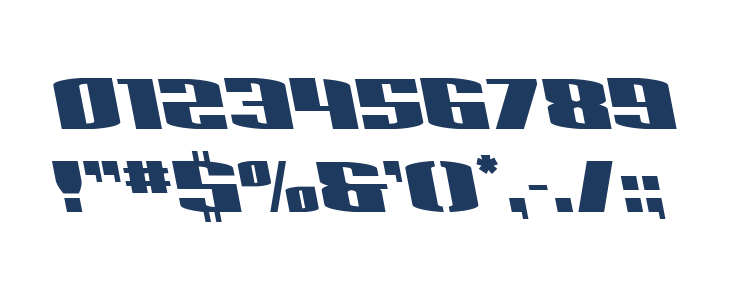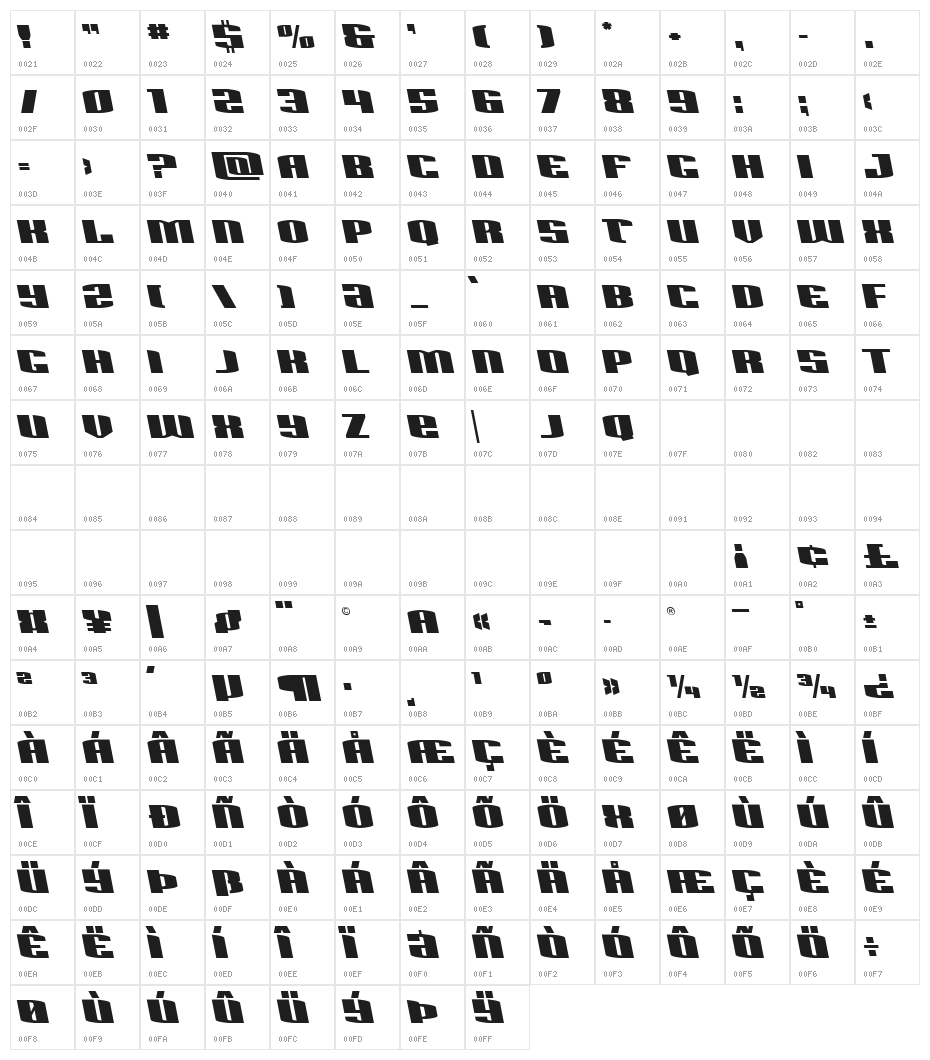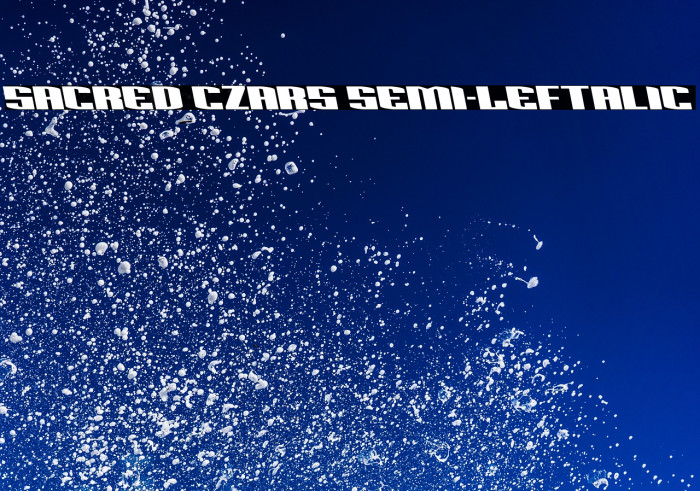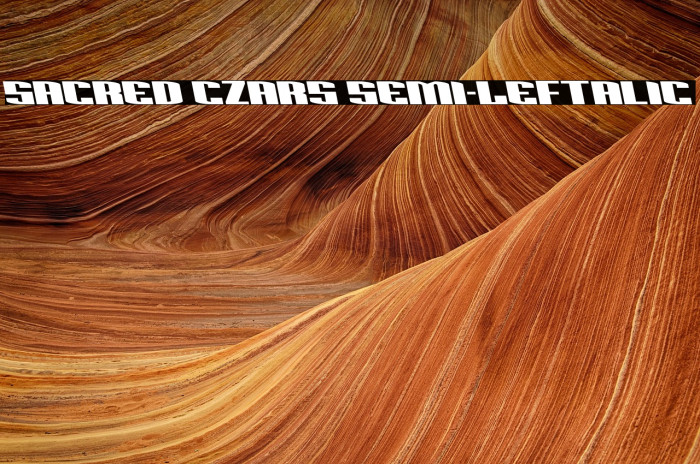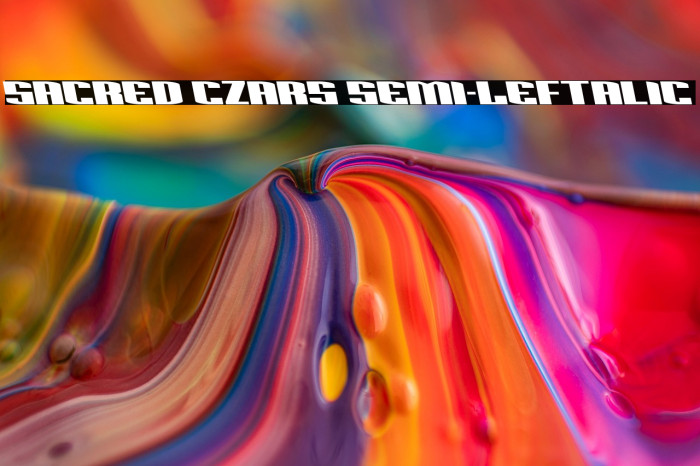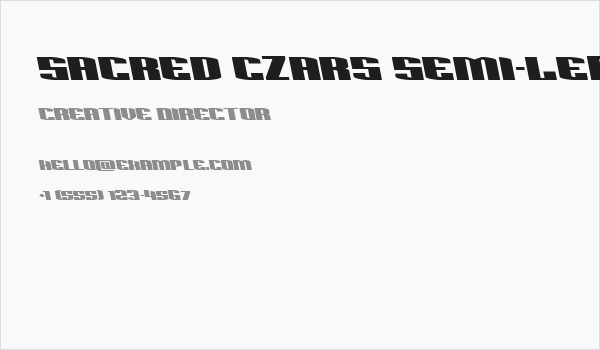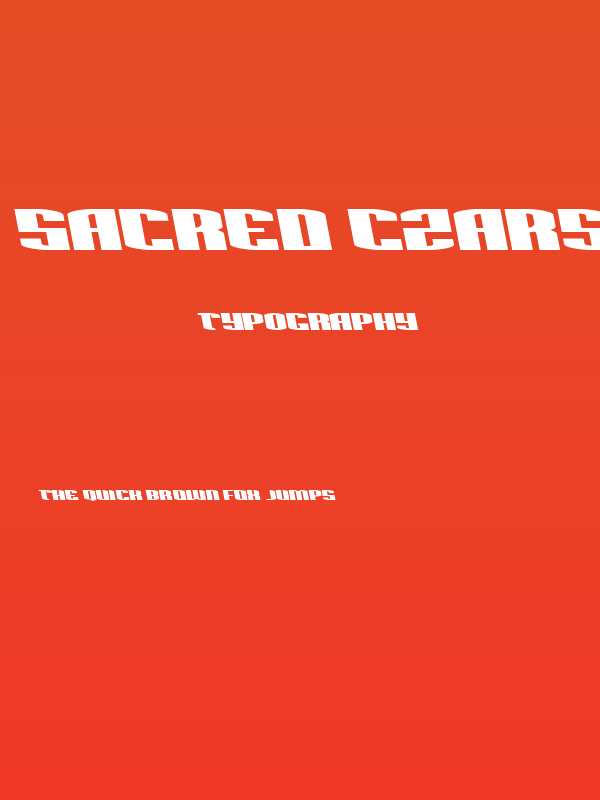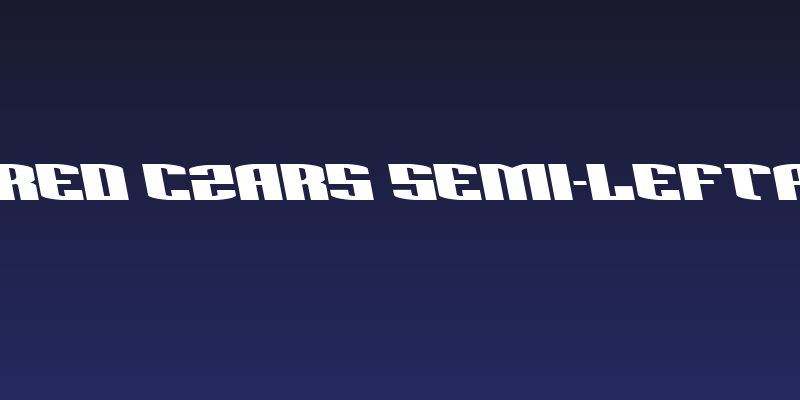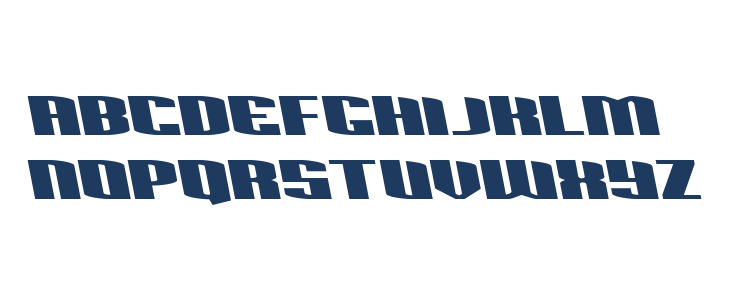
Sacred Czars Semi-Leftalic Font
Sacred Czars Semi-Leftalic Description
This font features a bold and dynamic style with a distinct slant, giving it a sense of movement and energy. The characters are wide and have a strong presence, making them ideal for attention-grabbing designs. The angular cuts and sharp edges add a modern and edgy feel, while the consistent stroke width ensures readability. The uppercase and lowercase letters maintain a cohesive look, and the numerals and special characters are designed to match the overall aesthetic. This font is perfect for projects that require a bold statement and a contemporary touch.
| Proposed Projects | Ideal for posters, headlines, branding, and any project needing a bold, modern look. |